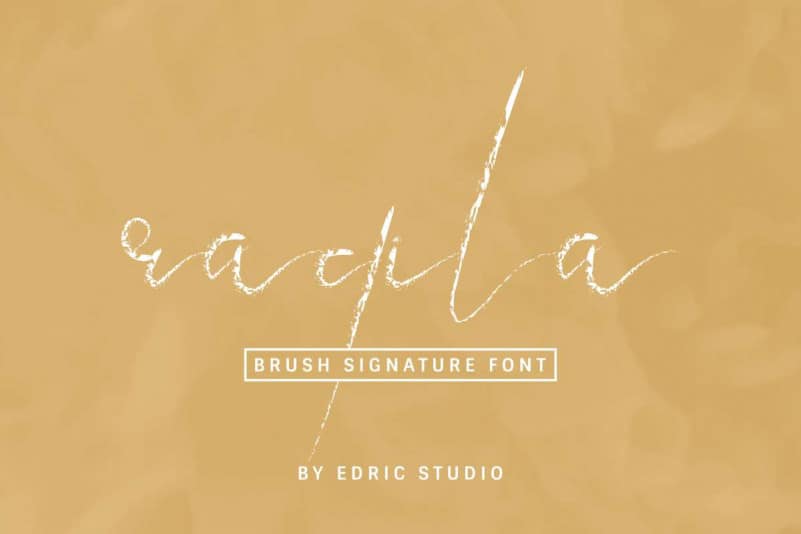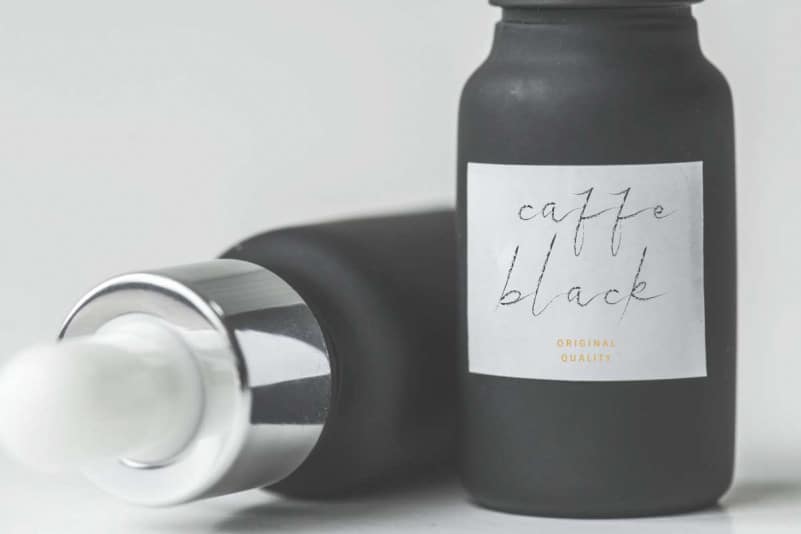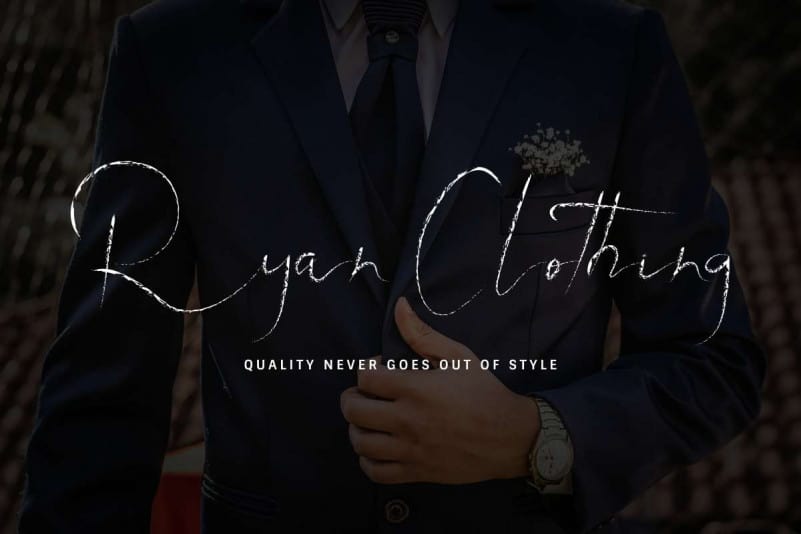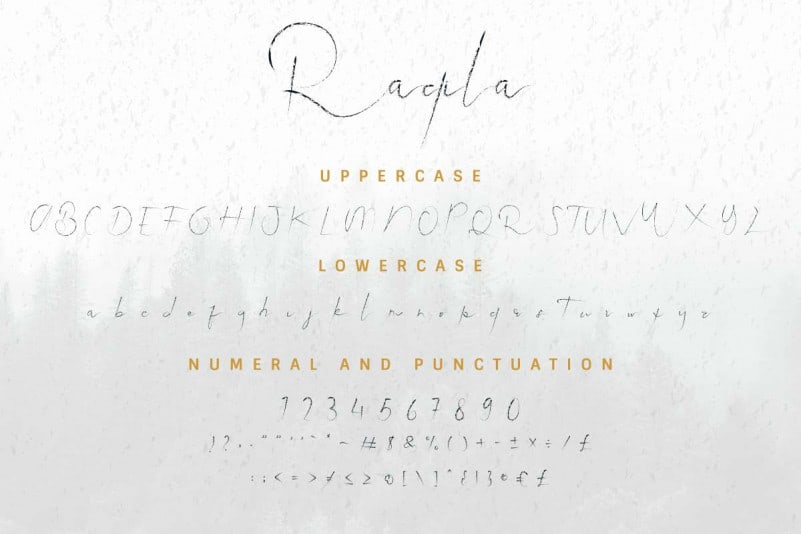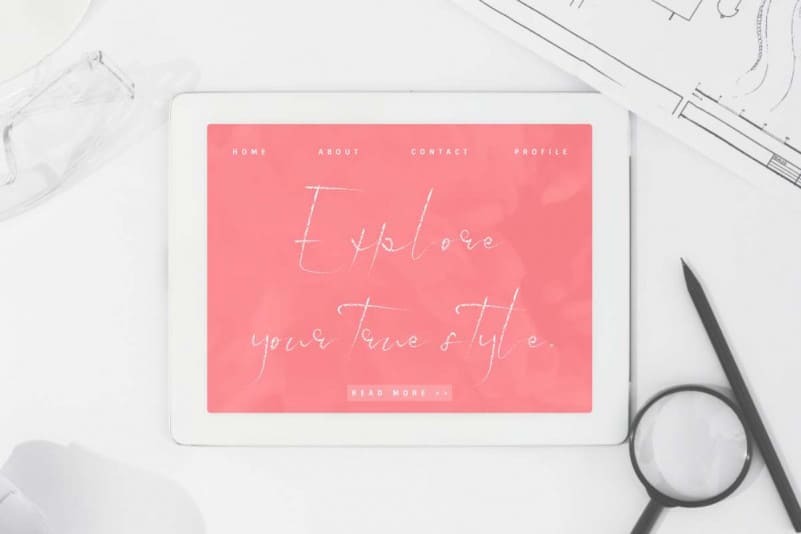
Raqila Rough Brush Signature Font
Raqila Rough Brush Signature Font is a unique dry rough brush handwriting script font. It has a unique typeface designs with special textured effect. Well space managed and hand selected kerning arrangement. The theme style of this font are elegant, exclusive, stylish, vintage, signature, brush, calligraphic, feminine and exclusive style. Stand out from the crowd using this font.